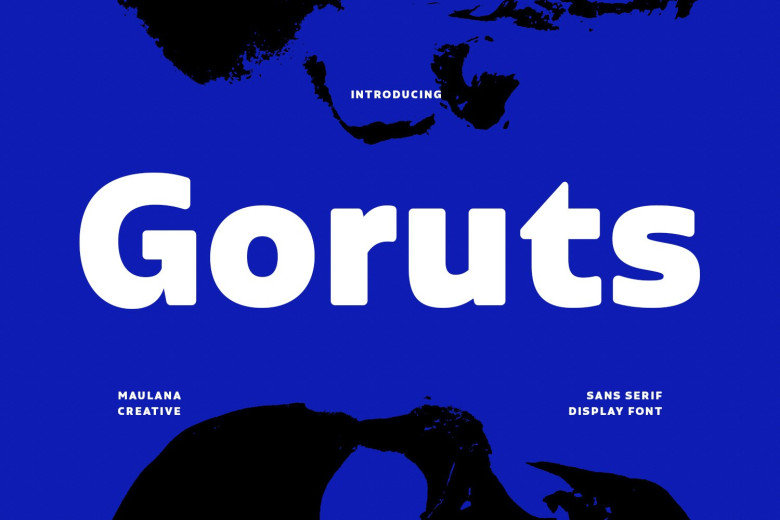
Goruts Font
Goruts is a modern, fun serif font. It boasts a bold stroke, coming with multilingual character set and alternate characters and ligatures. Extraordinary work is coming to you! Goruts follows the layout of more than 100 languages.
This font is suitable for logo design, SNS, Movie Titles, Books titles or a short text even long text letter, and it’s a good choice whether you need to use it for your secondary text font with some script or mix up with serif fonts. Have a wonderful time creating with Goruts font.
Goruts Sans Serif Font